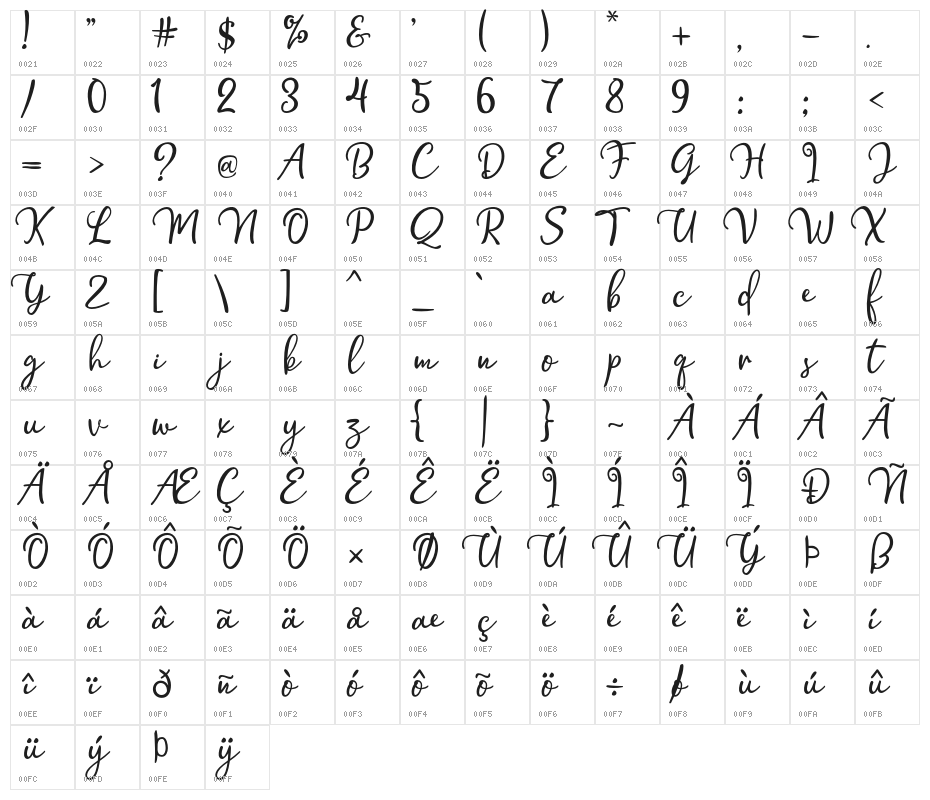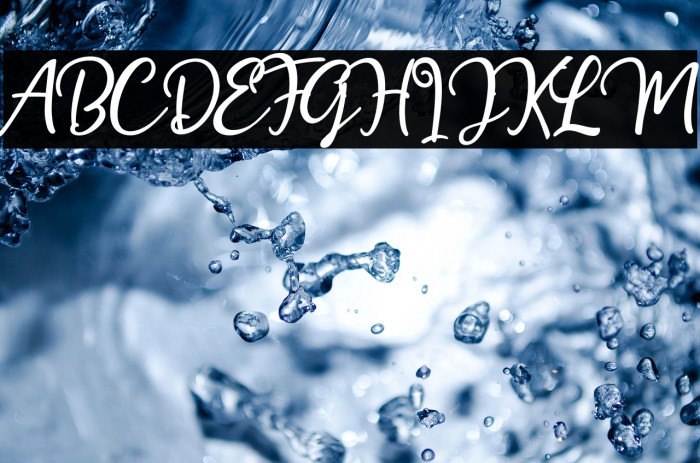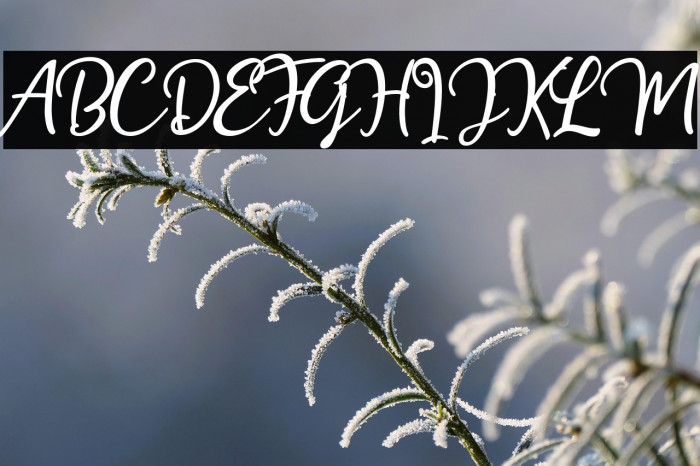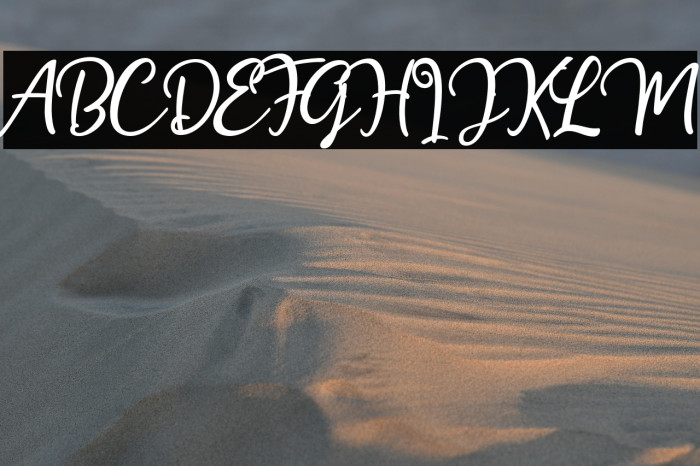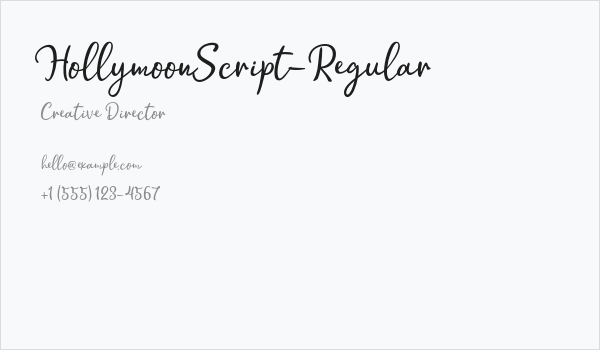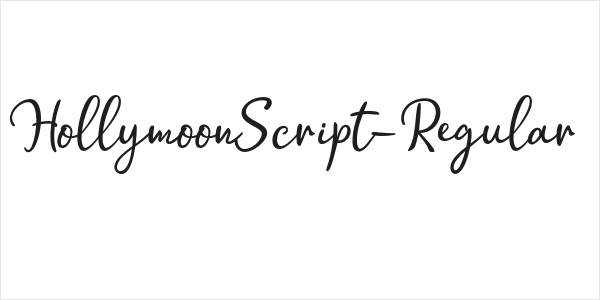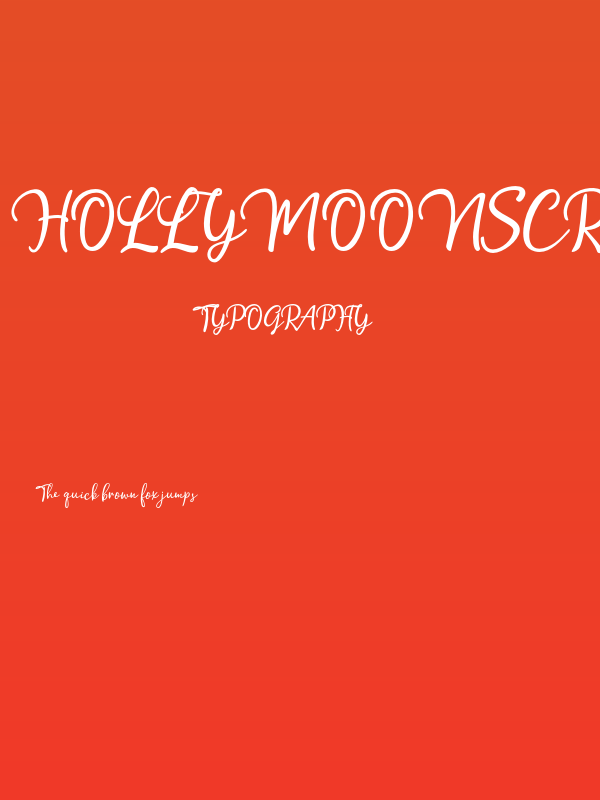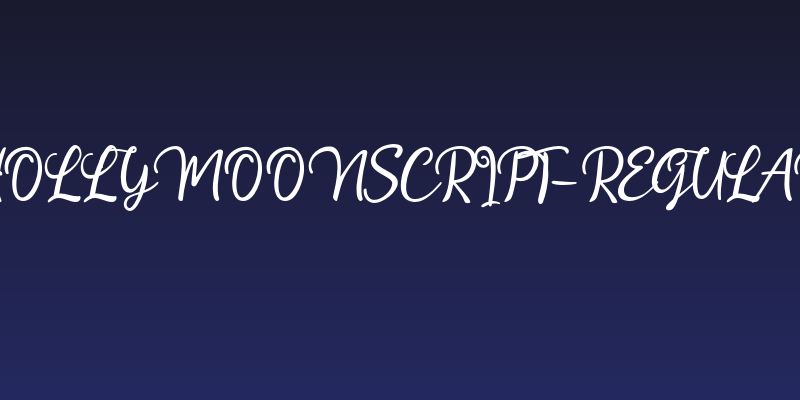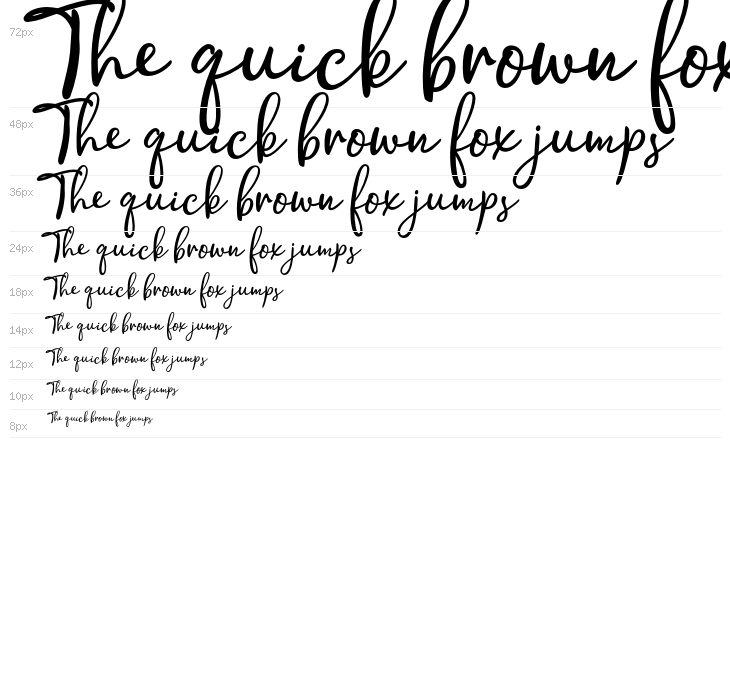
HollymoonScript-Regular Font
HollymoonScript-Regular Description
This font features a lively and flowing script style, characterized by its elegant and connected letterforms. The uppercase letters are bold and sweeping, with a sense of movement and grace. The lowercase letters maintain a consistent flow, enhancing the script's cursive nature. Numbers are distinct and maintain the same fluidity, making them easily readable. Special characters are creatively integrated, matching the overall aesthetic. The font's design is both decorative and functional, making it suitable for a variety of creative applications.
| Use Case | Logos, Invitations, Decorative text |
| Proposed Projects | Ideal for wedding invitations, greeting cards, branding projects, and logo design. |